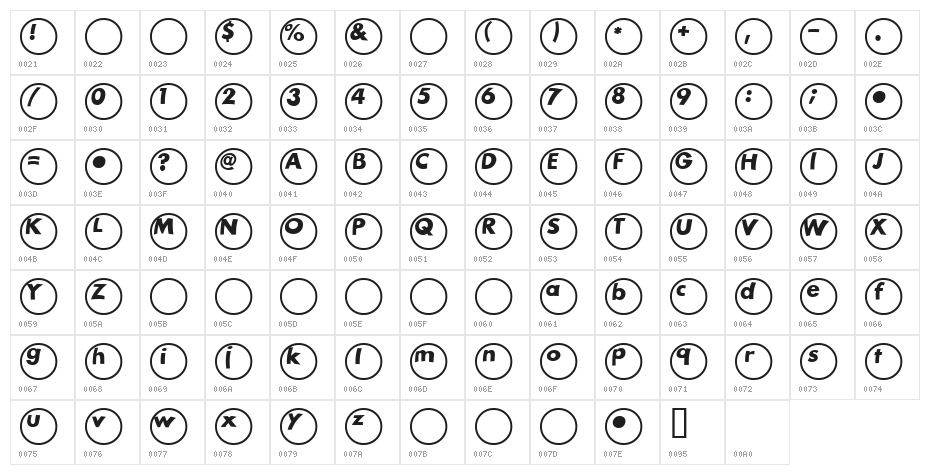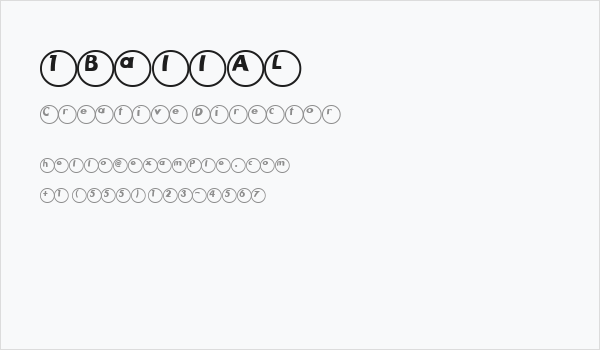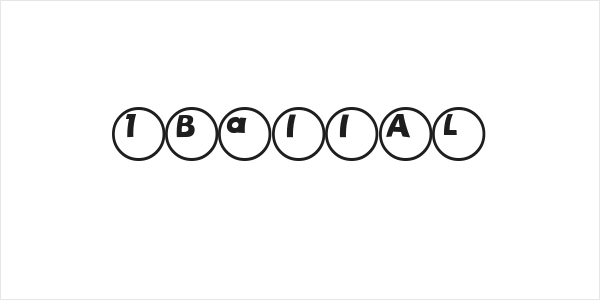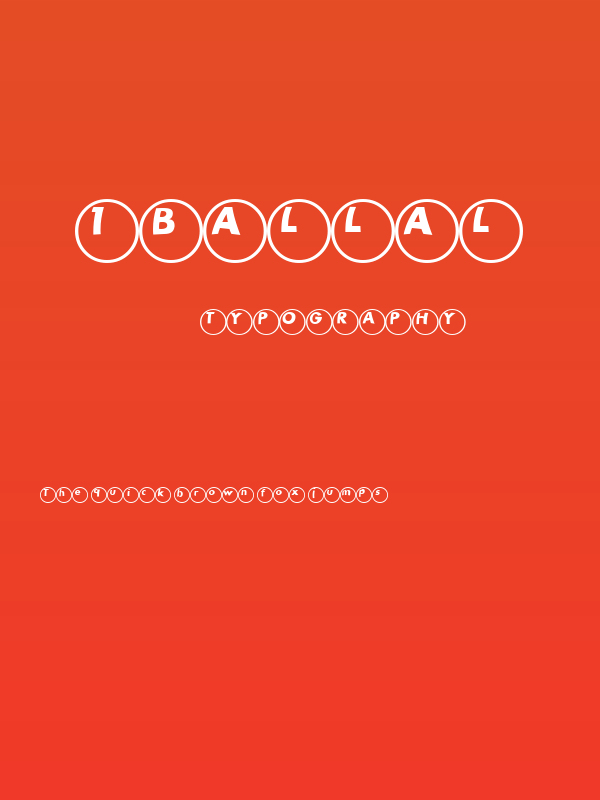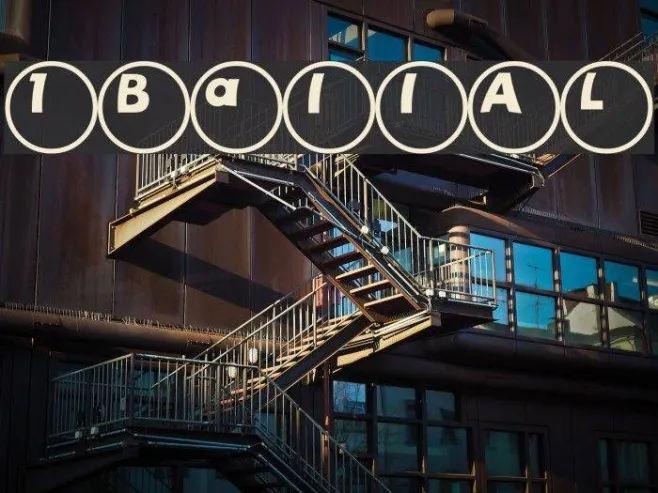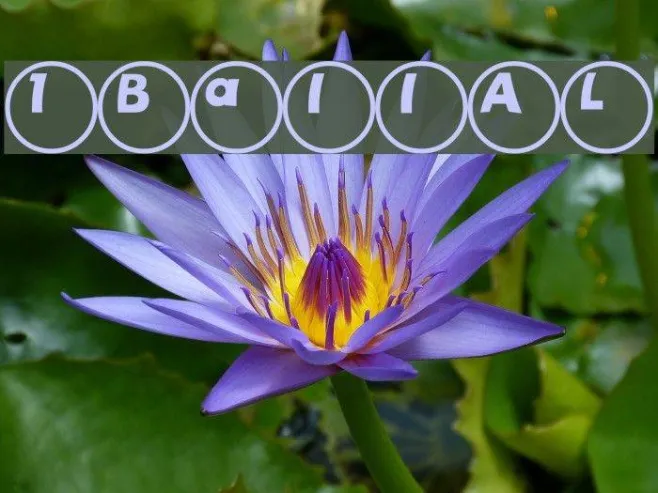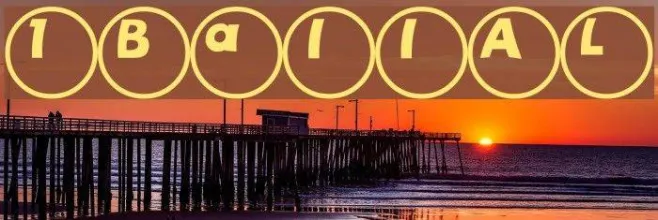
1BallAL Font
1BallAL Description
This playful and decorative font features characters enclosed within circles, creating a unique and eye-catching design. The letters and numbers are bold and slightly rounded, giving them a friendly and approachable appearance. The consistent circular enclosures add a uniformity that makes the font stand out, while the boldness of the characters ensures readability. This font is ideal for projects that require a fun and engaging look, such as children's books, playful branding, or creative posters. The special characters maintain the same circular design, ensuring a cohesive appearance across all elements.
| Overall Style | Playful, Decorative |
| Proposed Projects | Ideal for children's books, playful branding, creative posters, and educational materials. |